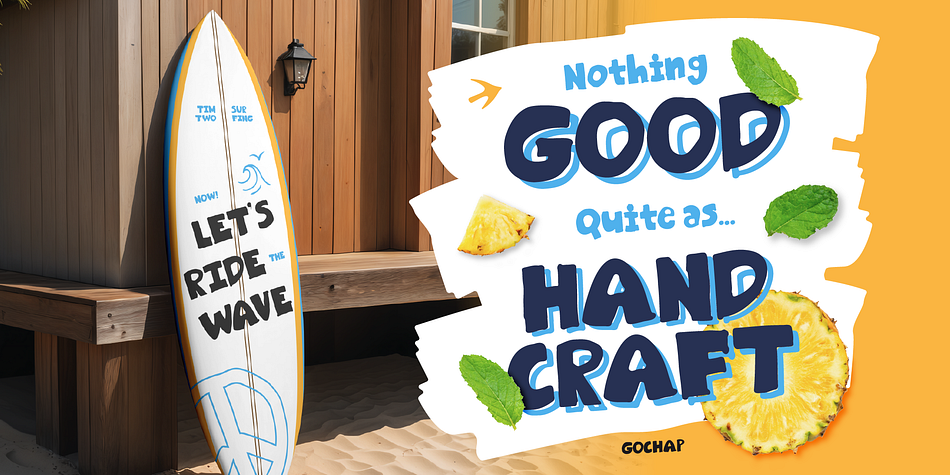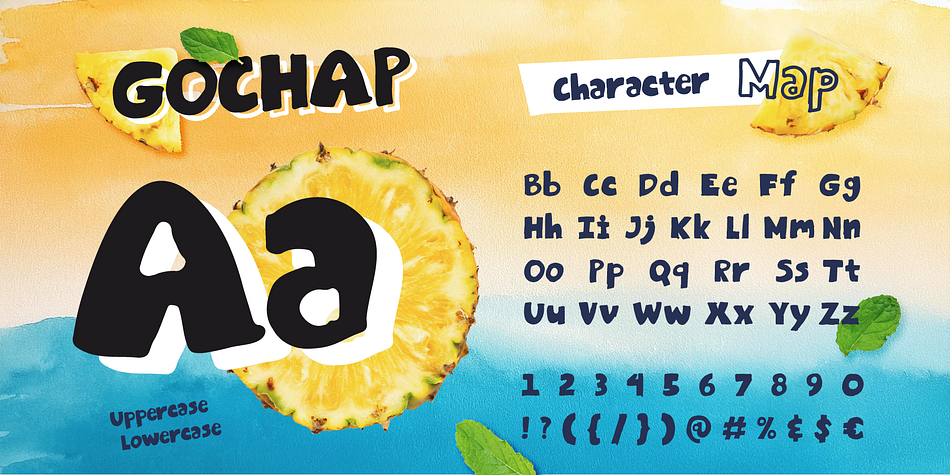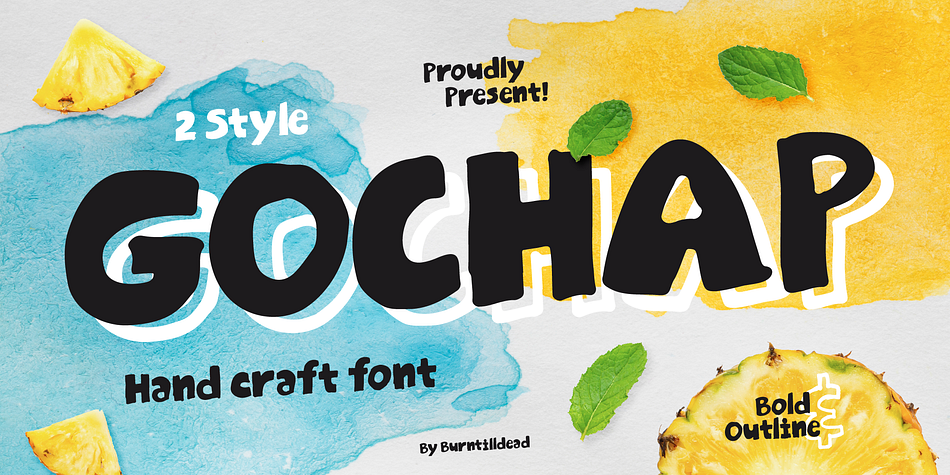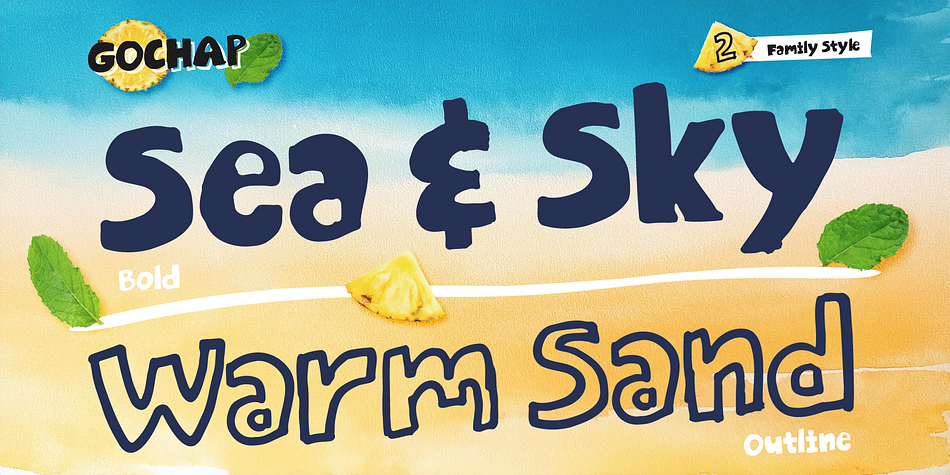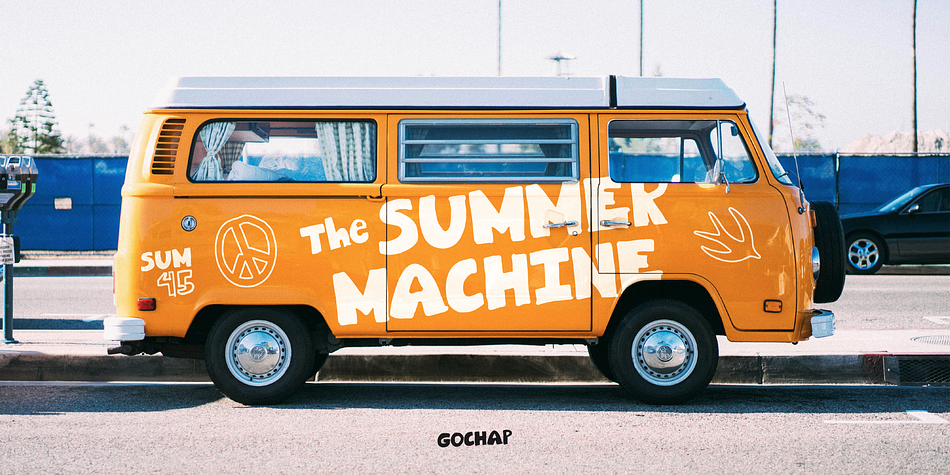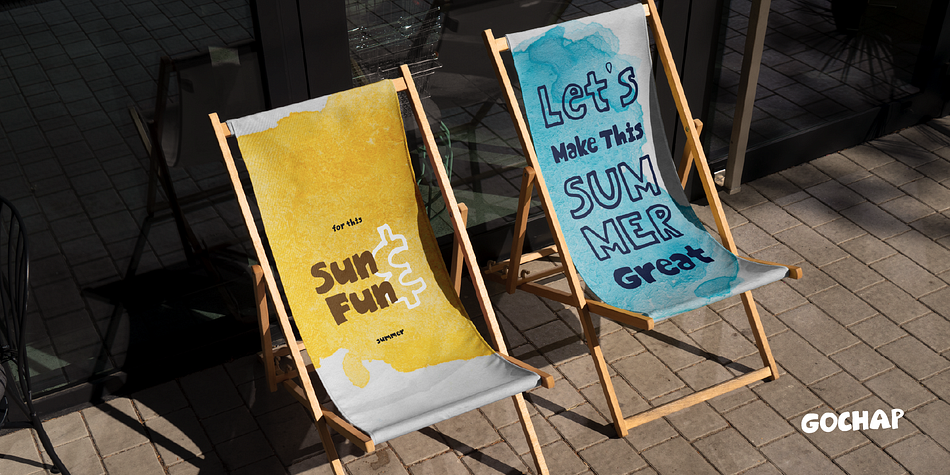
Gochap
Designed by Eric Kurniawan, Gochap is a hand drawn font family. This typeface has two styles and was published by Burntilldead.
Say hello to Gochap! A handcrafted font with a playful crayon-marker style—that’s exactly what makes it so charming! Gochap brings a bold personality and eye-catching vibe to your designs. It comes in two fun styles: Bold and Outline, making it even more exciting to experiment with.
Now that summer’s here, this font is perfect for adding that sunny, cheerful touch to your projects! Whether you’re working on posters, snack packaging, kids’ branding, social media posts, or anything that needs a fun and energetic twist.